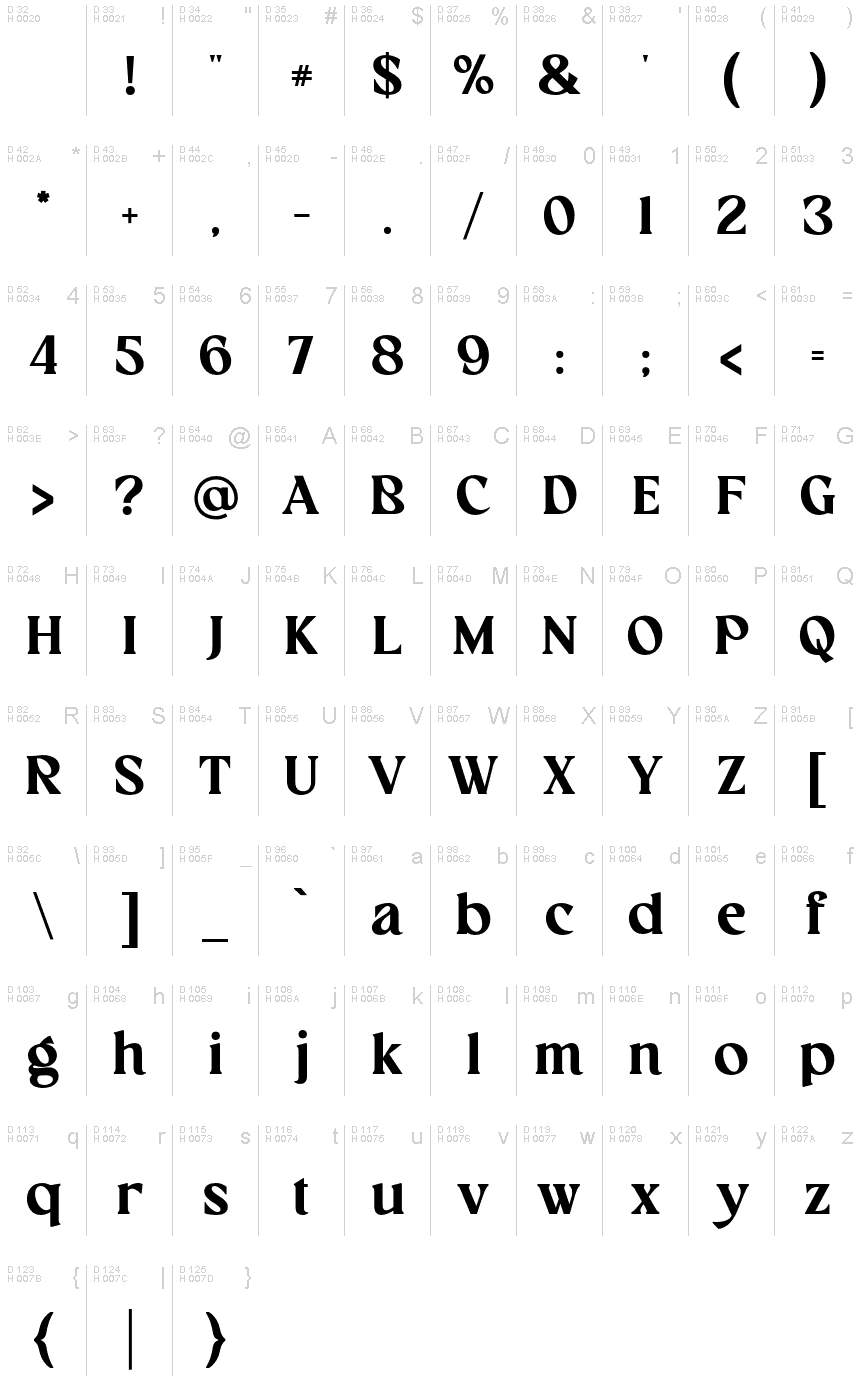
Richey-Regular
Richey, a serif font crafted by Sansakerta, boasts an elegant and modern aesthetic that bridges the gap between traditional serifs and contemporary sensibilities. With its refined curves and sharp serifs, this typeface exudes sophistication while maintaining a strong visual presence. The balance in its design makes it remarkably versatile for various creative endeavors.
The font's thick and thin stroke contrast creates a dynamic rhythm that captivates the audience, perfect for headlines and branding where a touch of distinction is required. The grace of Richey's characters suggests a suitability for high-end editorial work, luxury product packaging, or any project that demands a font with both style and substance.
Each letter in Richey's repertoire is designed to stand out while seamlessly working together to form cohesive text blocks. Its unique characteristics—observed in the elegant tail of the 'y' and the classic yet bold structure of each character—make it not just another serif typeface but rather an essential addition to any designer's toolkit seeking to leave an indelible impression on their creative projects.